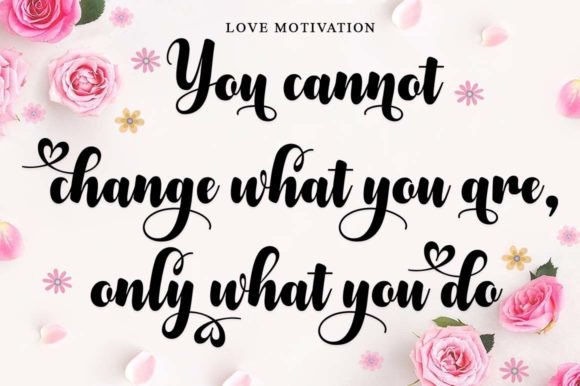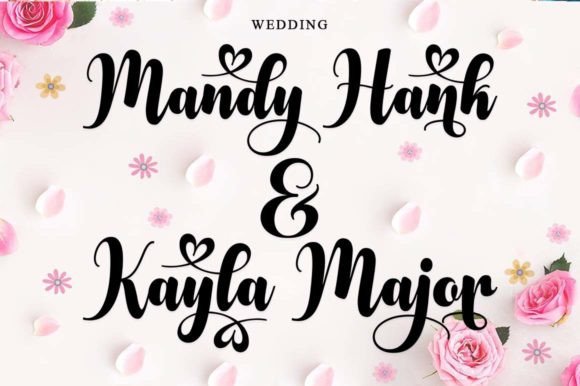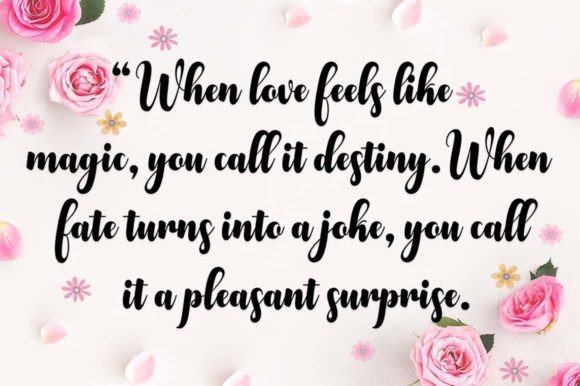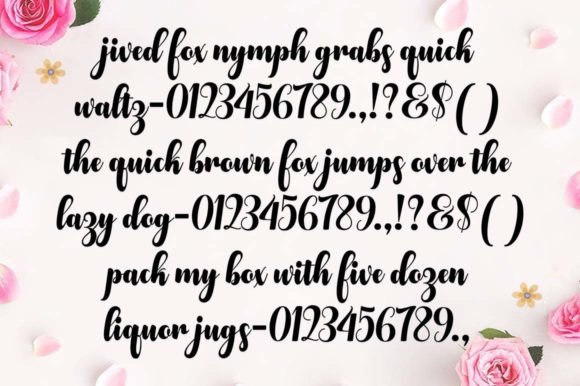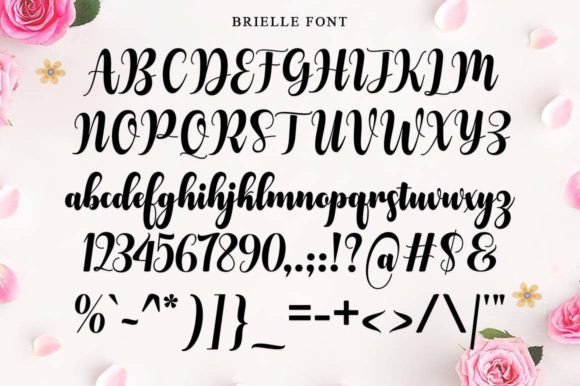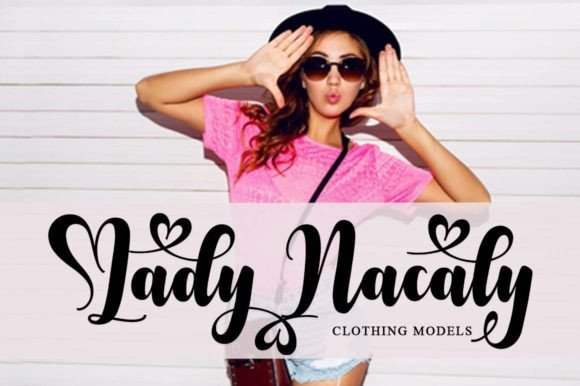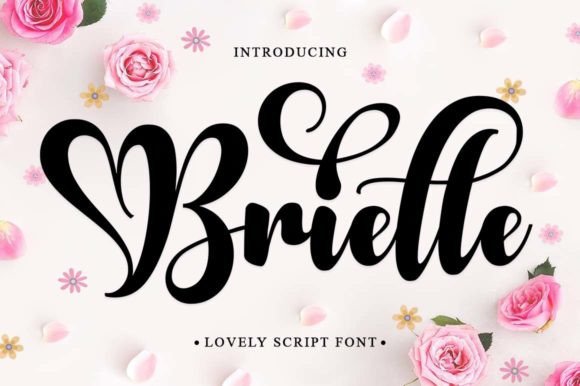
Brielle Font: Elevate Your Designs with Elegance and Sophistication
Are you on the hunt for a font that exudes smoothness, elegance, and a touch of sophistication? Look no further than the Brielle Font! This stunning handwritten font is designed to capture the hearts of designers and crafters alike with its unique and timeless style. Perfect for a wide range of projects, Brielle is sure to become your new favorite go-to font.
What Makes Brielle Font So Special?
Brielle Font boasts a smooth, elegant, and flowing script that is sure to add a touch of luxury to any design. Its handwritten nature gives it a personal and approachable feel, making it ideal for projects that require a bit of warmth and character. Whether you’re working on a branding project, a wedding invitation, or a craft project, Brielle Font is the perfect choice.
One of the standout features of Brielle Font is its totally different and timeless style. Unlike other fonts that may come and go with the trends, Brielle’s classic elegance ensures that it will remain a staple in your design arsenal for years to come. Its versatility is also worth noting, as it can be used in a variety of contexts, from formal to informal, and still manage to make a lasting impression.
Brielle Font is PUA (Private Use Area) coded, which means that accessing all the glyphs and swashes is a breeze. This feature is especially useful for designers who want to add an extra layer of creativity to their work. With PUA coding, you can easily access and use the various glyphs and swashes to create stunning designs that showcase your unique style.
Whether you’re a professional designer or a crafter looking to add a personal touch to your projects, Brielle Font is the perfect choice. Its smooth and elegant script makes it ideal for a wide range of applications, including:
- Craft projects, such as scrapbooking and card making
- Digital design, including social media graphics and blog headers
Why Choose Brielle Font?
So, why should you choose Brielle Font for your next project? Here are just a few reasons:
- Unique and timeless style: Brielle Font boasts a classic elegance that will never go out of style.
- Ease of use: With PUA coding, accessing glyphs and swashes is easy and convenient.
- Versatility: Brielle Font can be used in a wide range of contexts, from formal to informal.
- Elegance and sophistication: Add a touch of luxury to your designs with Brielle’s smooth and elegant script.
Get Ready to Fall in Love with Brielle Font
If you’re looking for a font that will elevate your designs and add a touch of elegance and sophistication, look no further than Brielle Font. With its smooth and flowing script, PUA coding, and timeless style, Brielle is sure to become your new favorite font. So, fall in love with Brielle and use her to create spectacular designs that showcase your unique style!
In conclusion, Brielle Font is a must-have for any designer or crafter looking to add a touch of elegance and sophistication to their projects. Its unique and timeless style, ease of use, and versatility make it the perfect choice for a wide range of applications. So, what are you waiting for? Get your hands on Brielle Font today and start creating stunning designs that will leave a lasting impression!